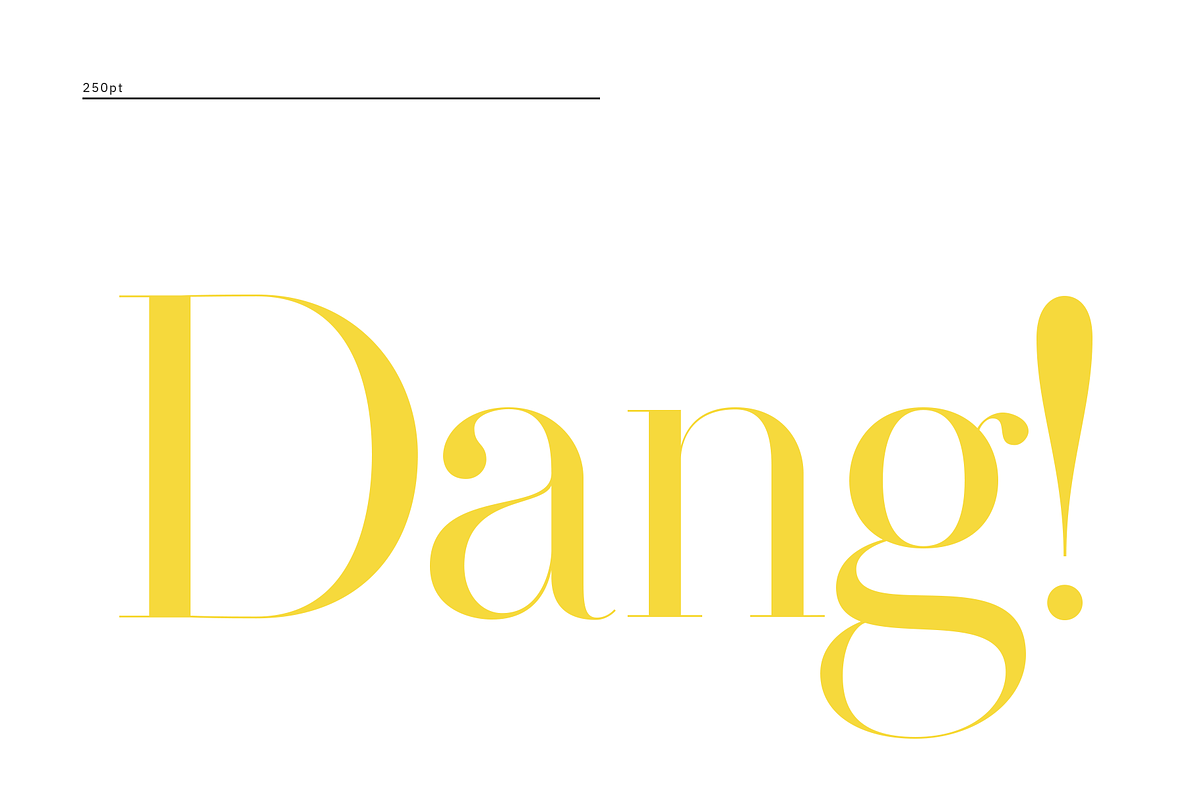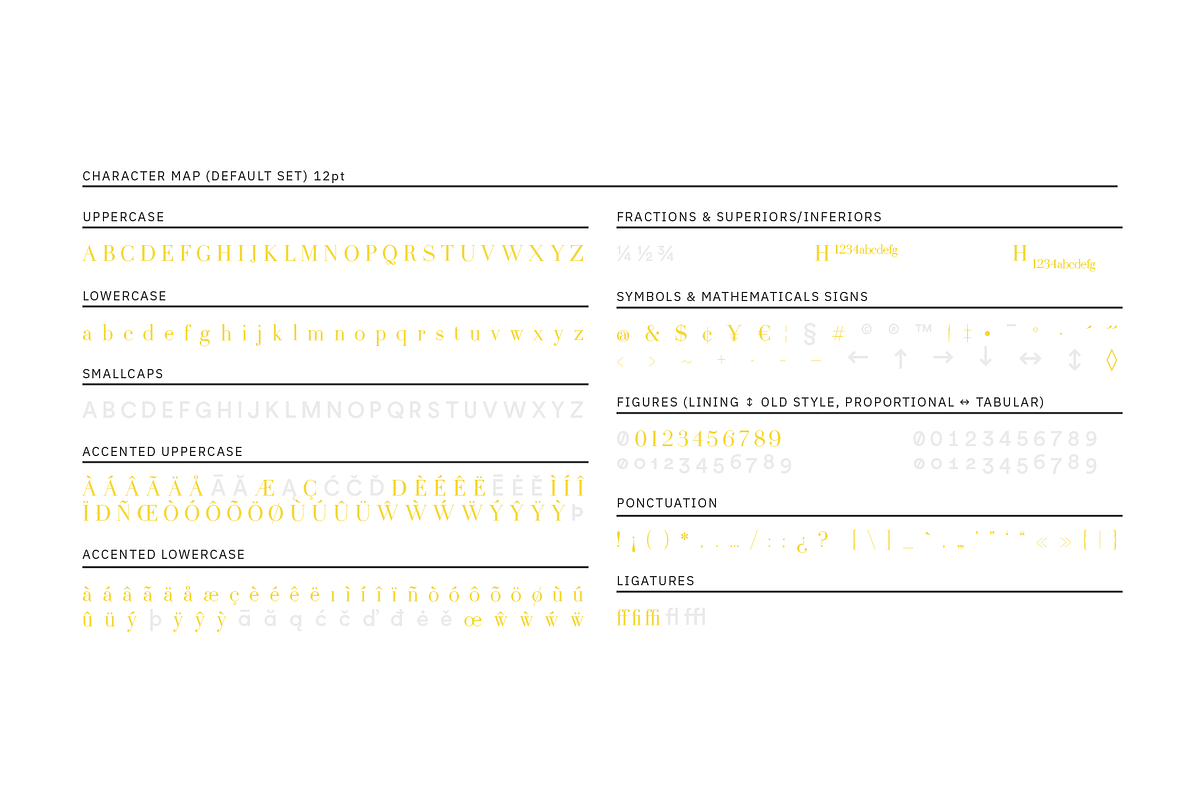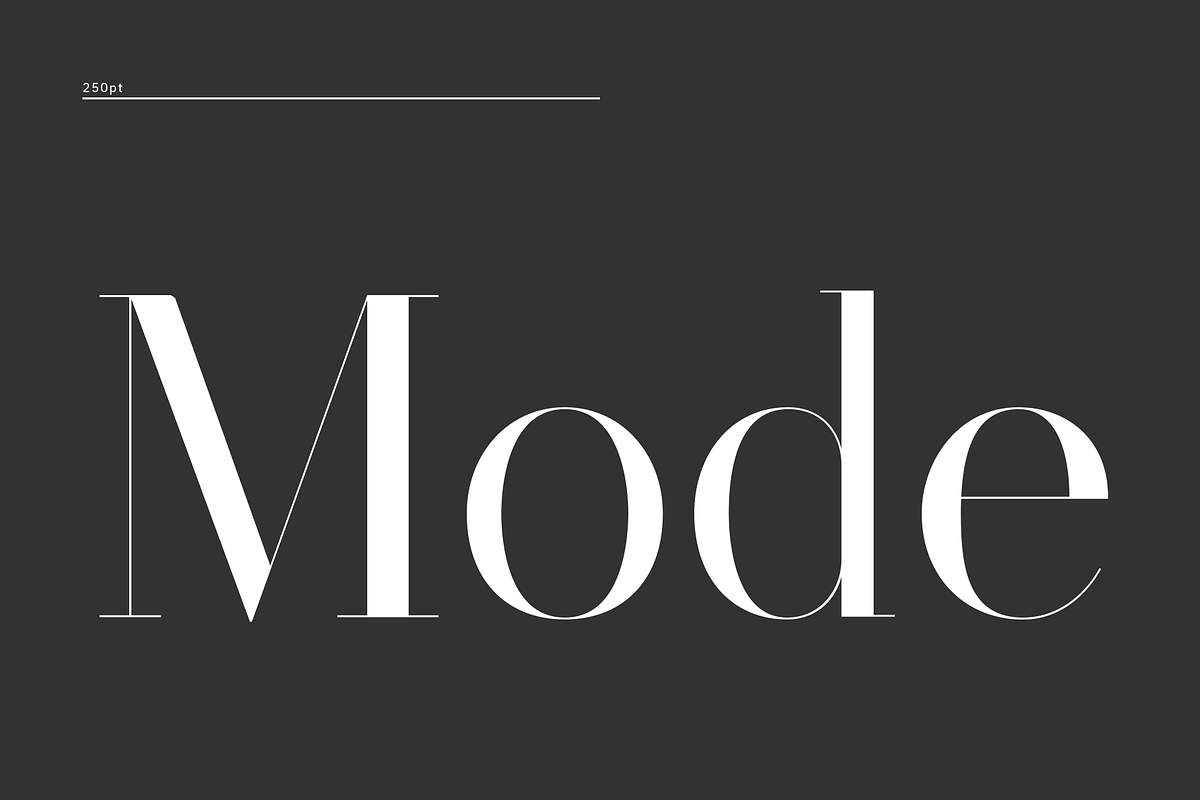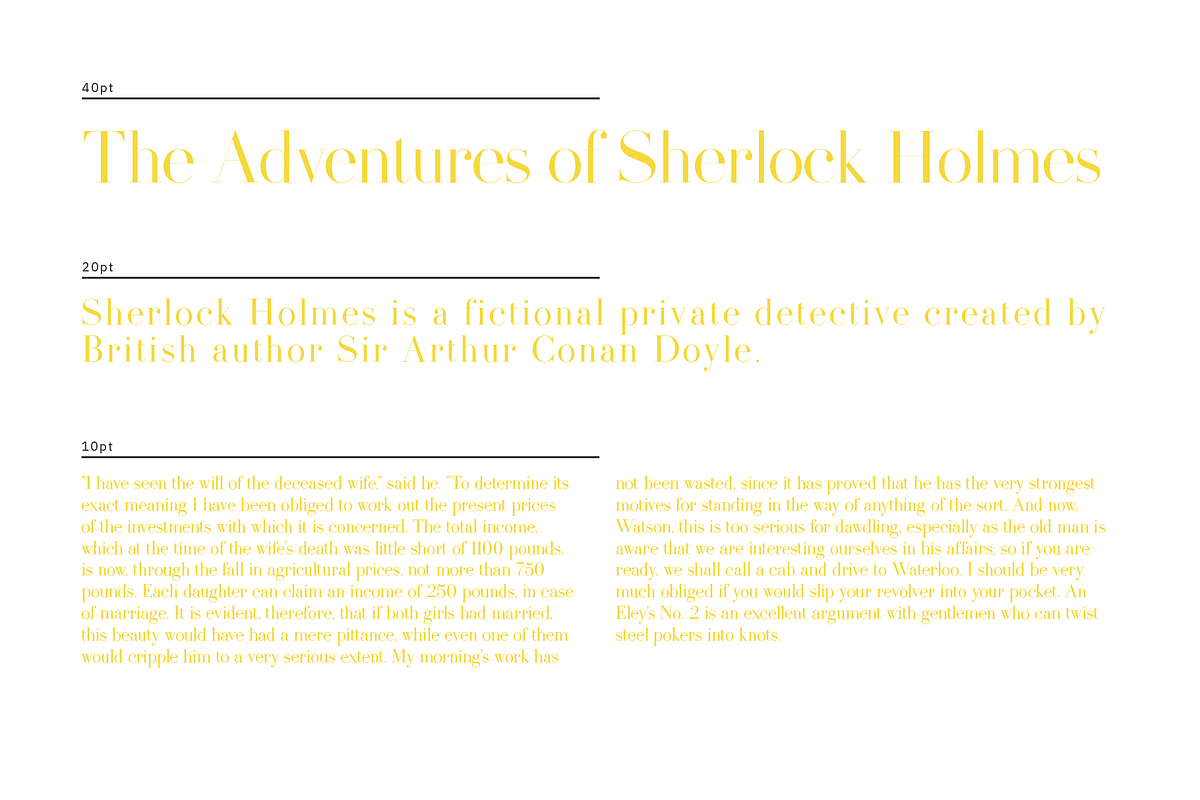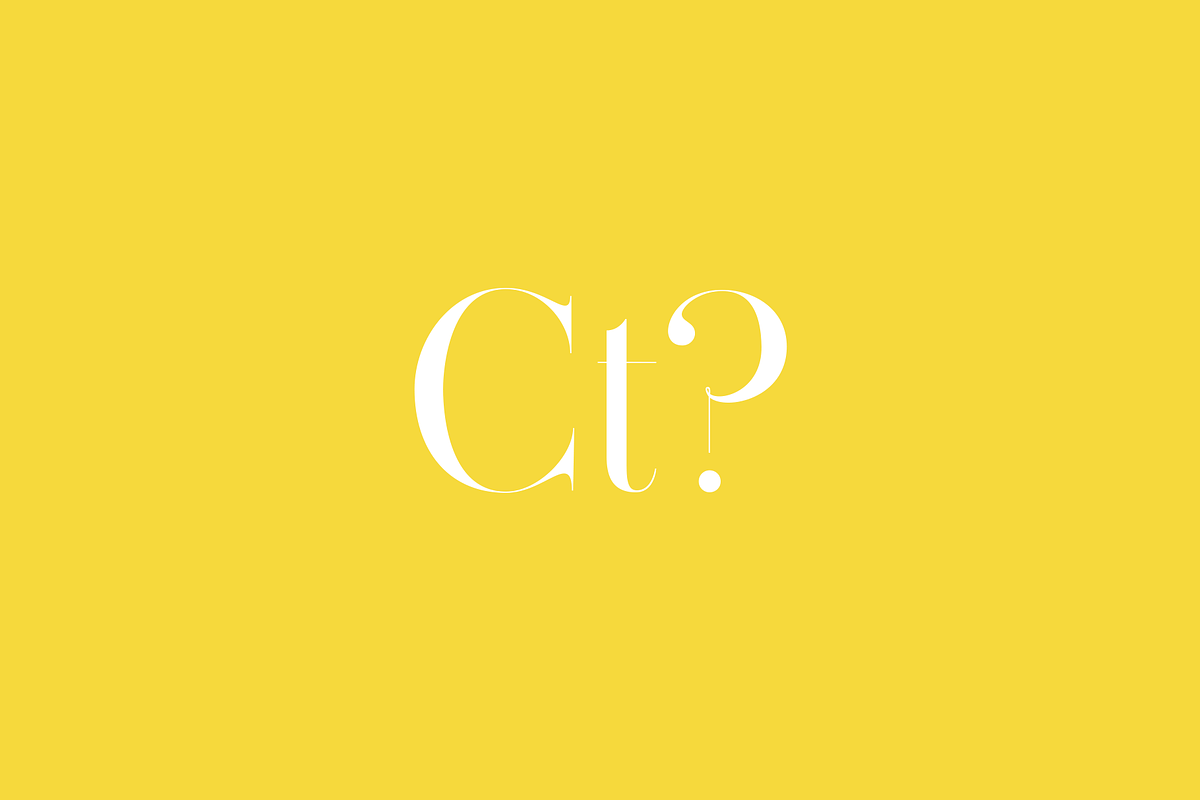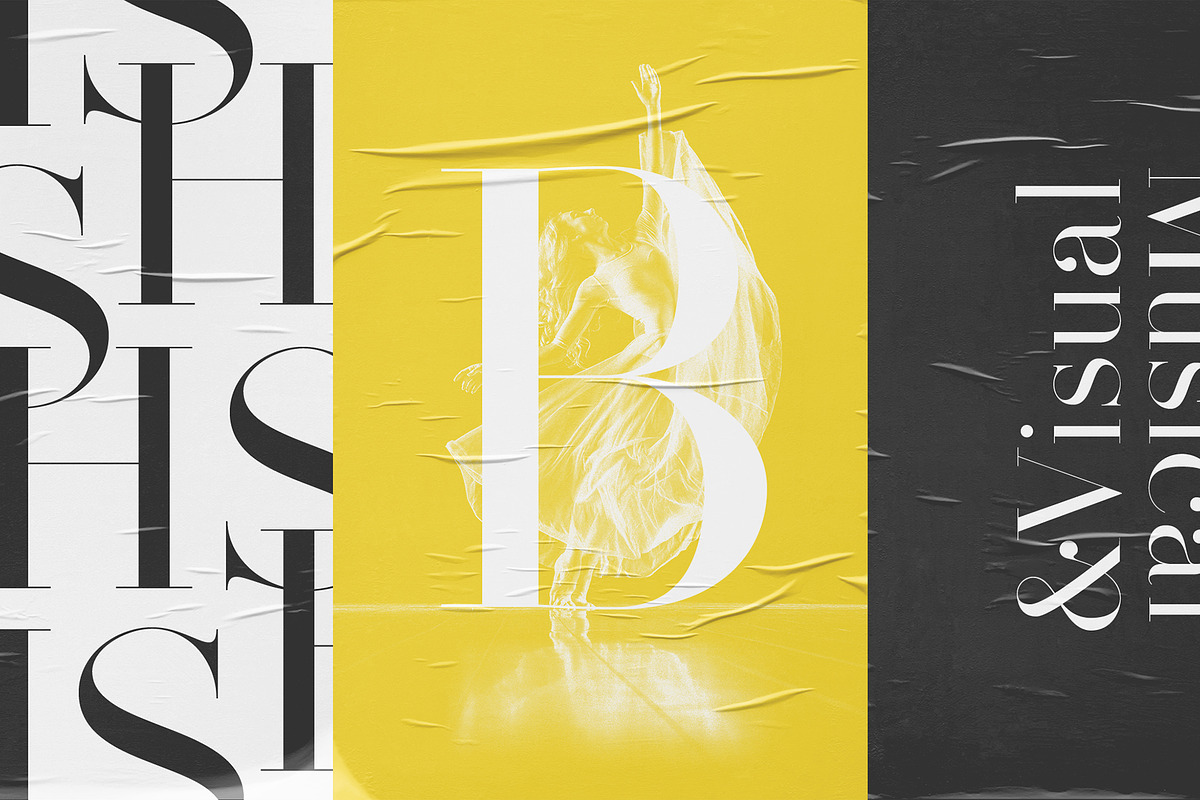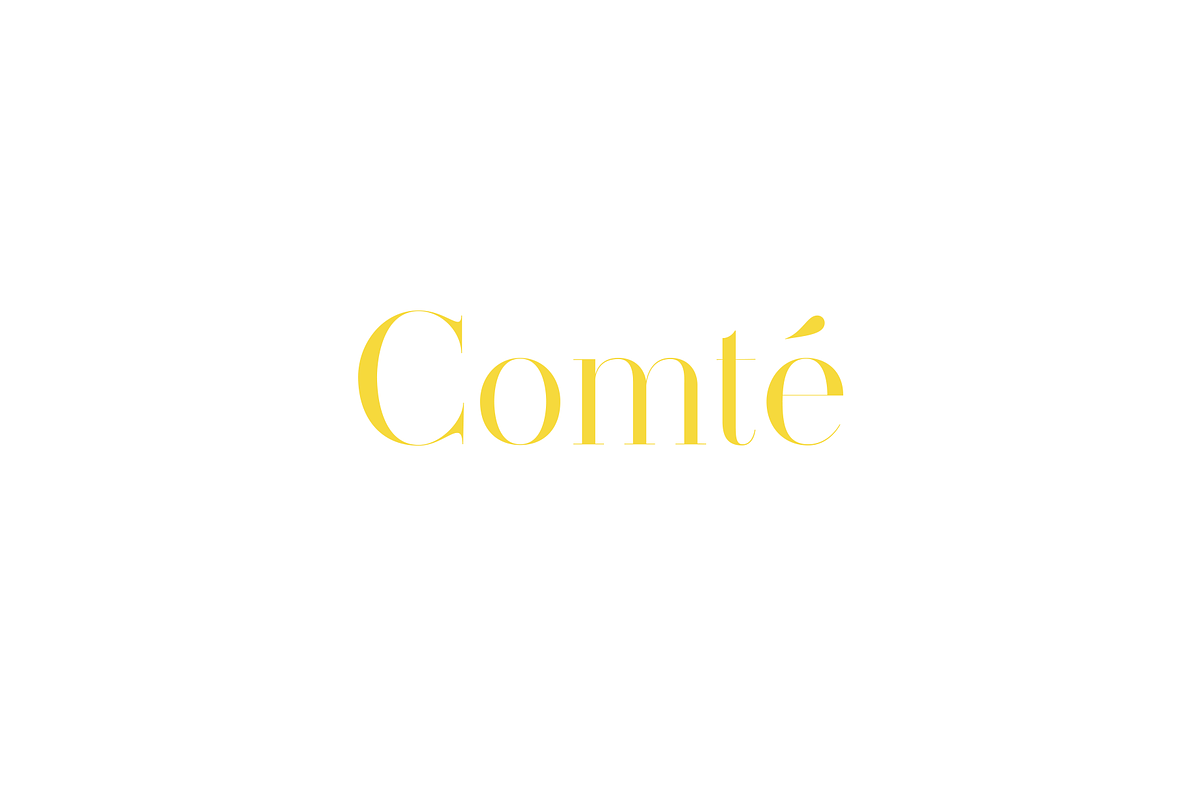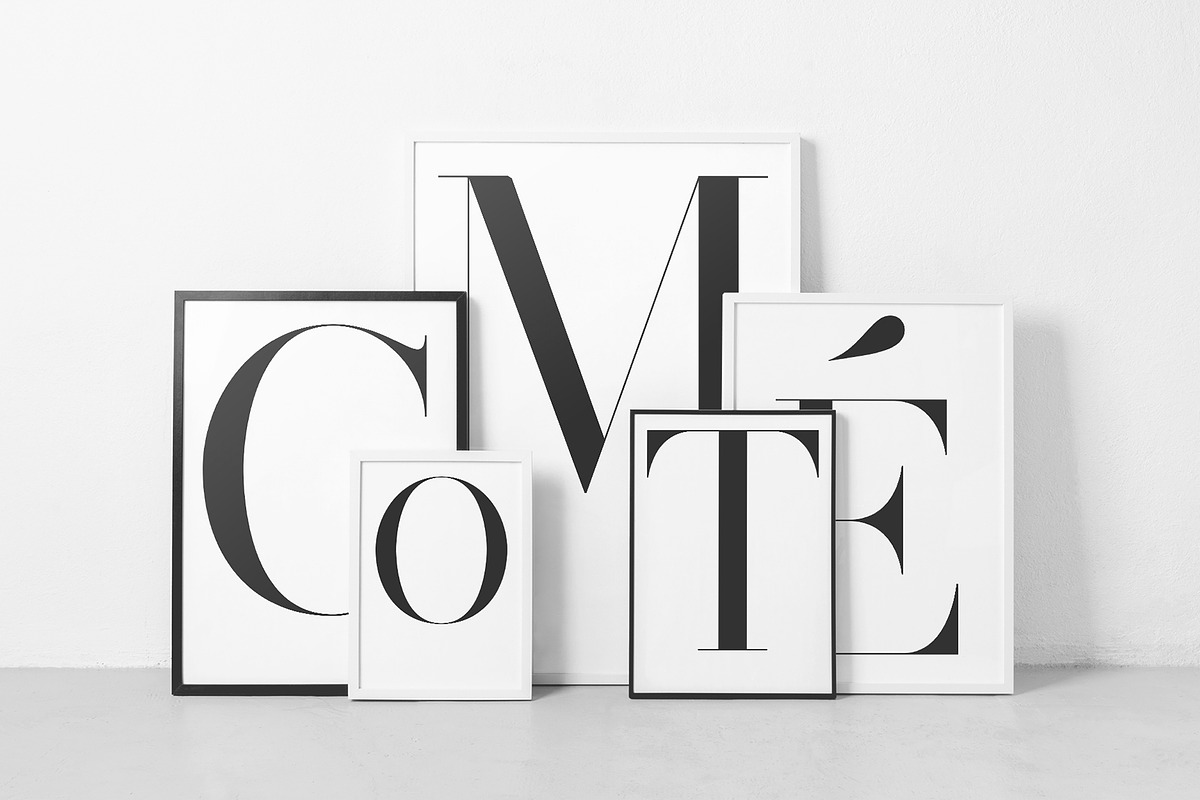
Comte Typeface
COMTÉ is an elegant font. With its strong contrast and curves, it will seduce you and bring a touch of class in any circumstance at any time.
You can use COMTÉ for print and web projects as well. It will fit perfectly for fashion, music, logo design, weddings, posters and many more. Thin hairline work better at big sizes.
Why Comte Typeface is worth a look
Comte Typeface by Viktorvuka's Type Foundry fits naturally into Branding, posters, packaging, typography.